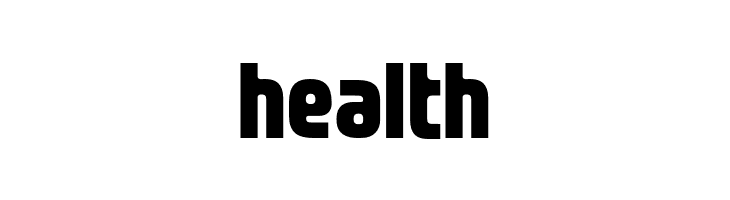
A modern, light sans-serif font with a clean and streamlined appearance.
A modern, medium-weight sans-serif font with a clean and versatile design.
A modern, semi-bold sans-serif font with clean lines and rounded edges.
A sleek, modern font with thin, elegant lines and a minimalist design.
A modern, medium-weight sans-serif font with a clean and versatile design.
A bold, modern sans-serif font with strong, thick strokes.
A bold, modern sans-serif font with strong geometric shapes.
A modern, light sans-serif font with a clean and minimalistic design.
A playful and bold font with a hand-drawn, whimsical style.
A playful, handwritten-style font with a dynamic and quirky appearance.